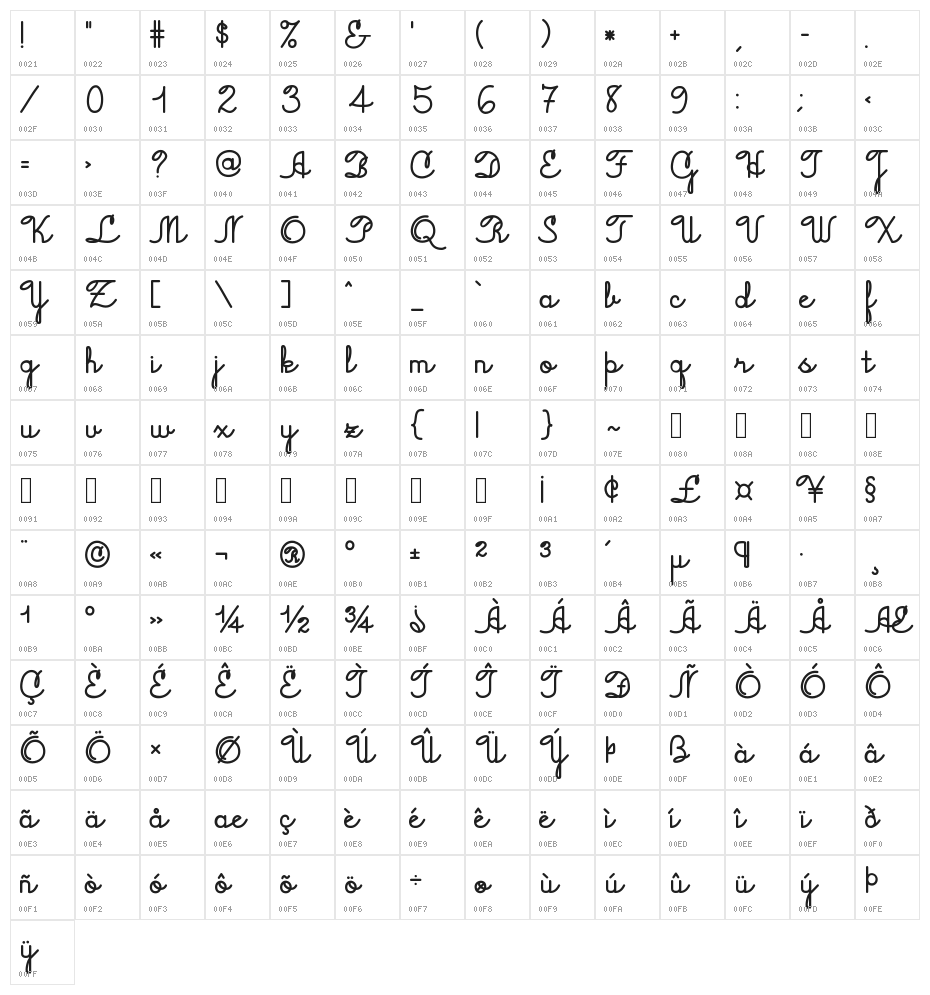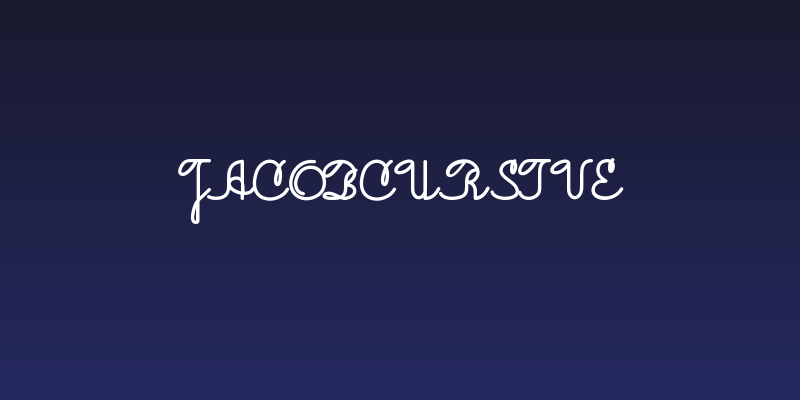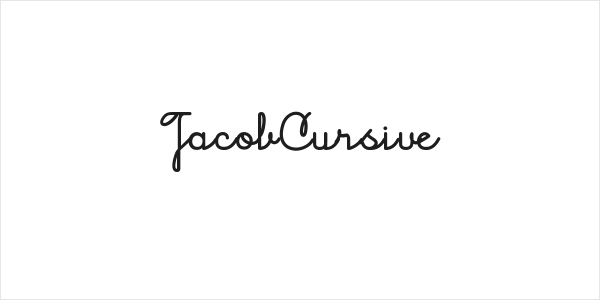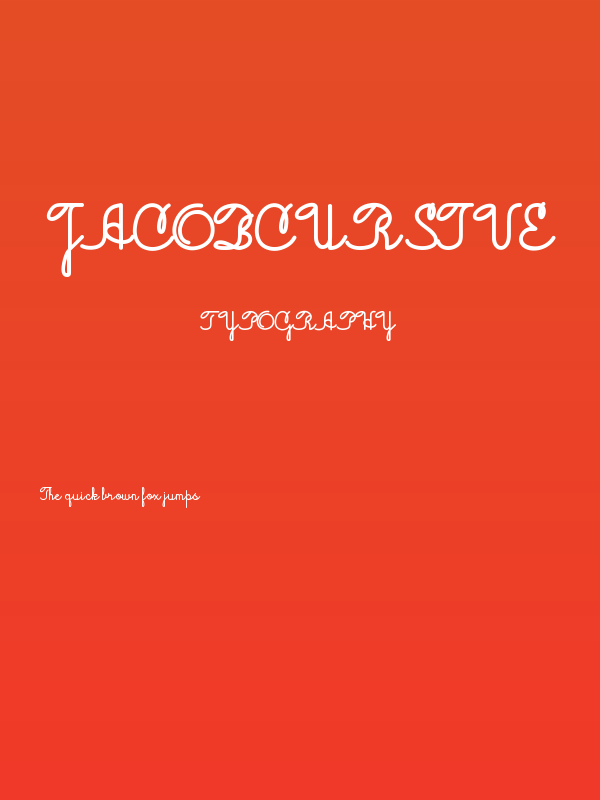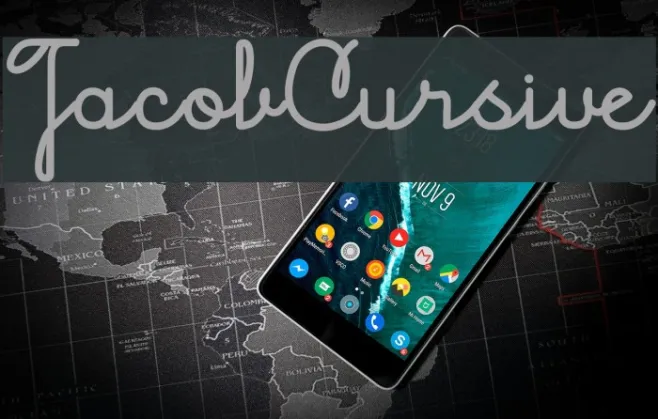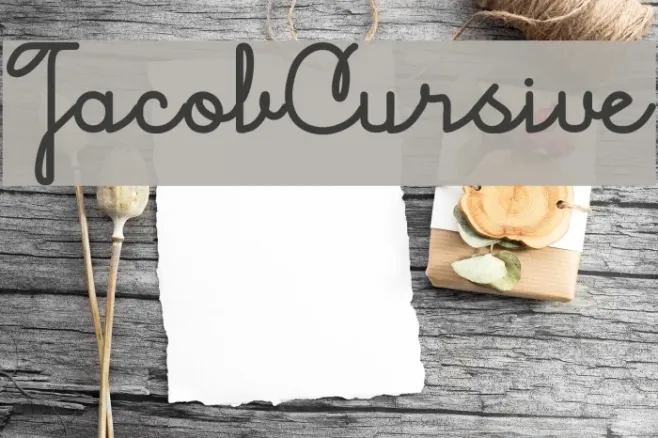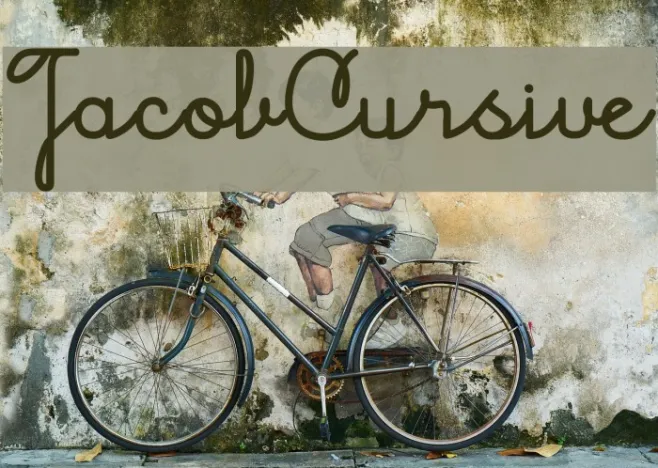
JacobCursive Font
JacobCursive Description
This font features a playful and elegant cursive style, characterized by smooth, flowing lines and a handwritten appearance. The uppercase letters maintain a consistent height, while the lowercase letters exhibit a charming looped design, enhancing its whimsical nature. The numerals are clear and easy to read, with a slight slant that complements the overall cursive theme. Special characters are well-integrated, maintaining the font's cohesive look. Its design is both approachable and stylish, making it suitable for a variety of creative applications.